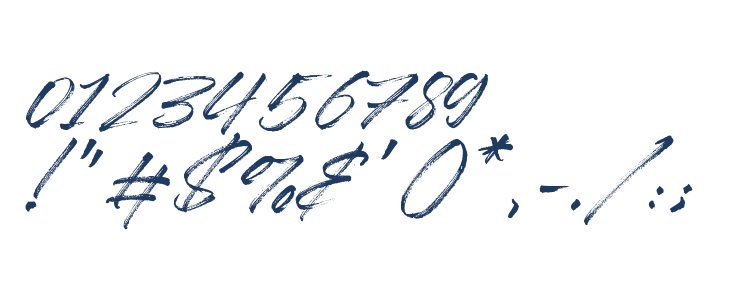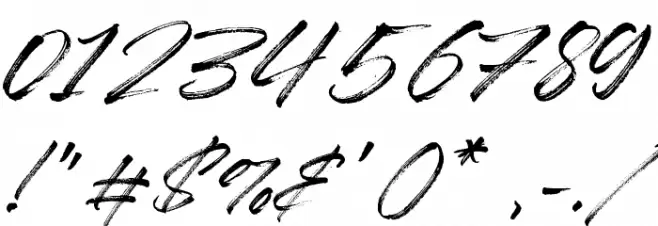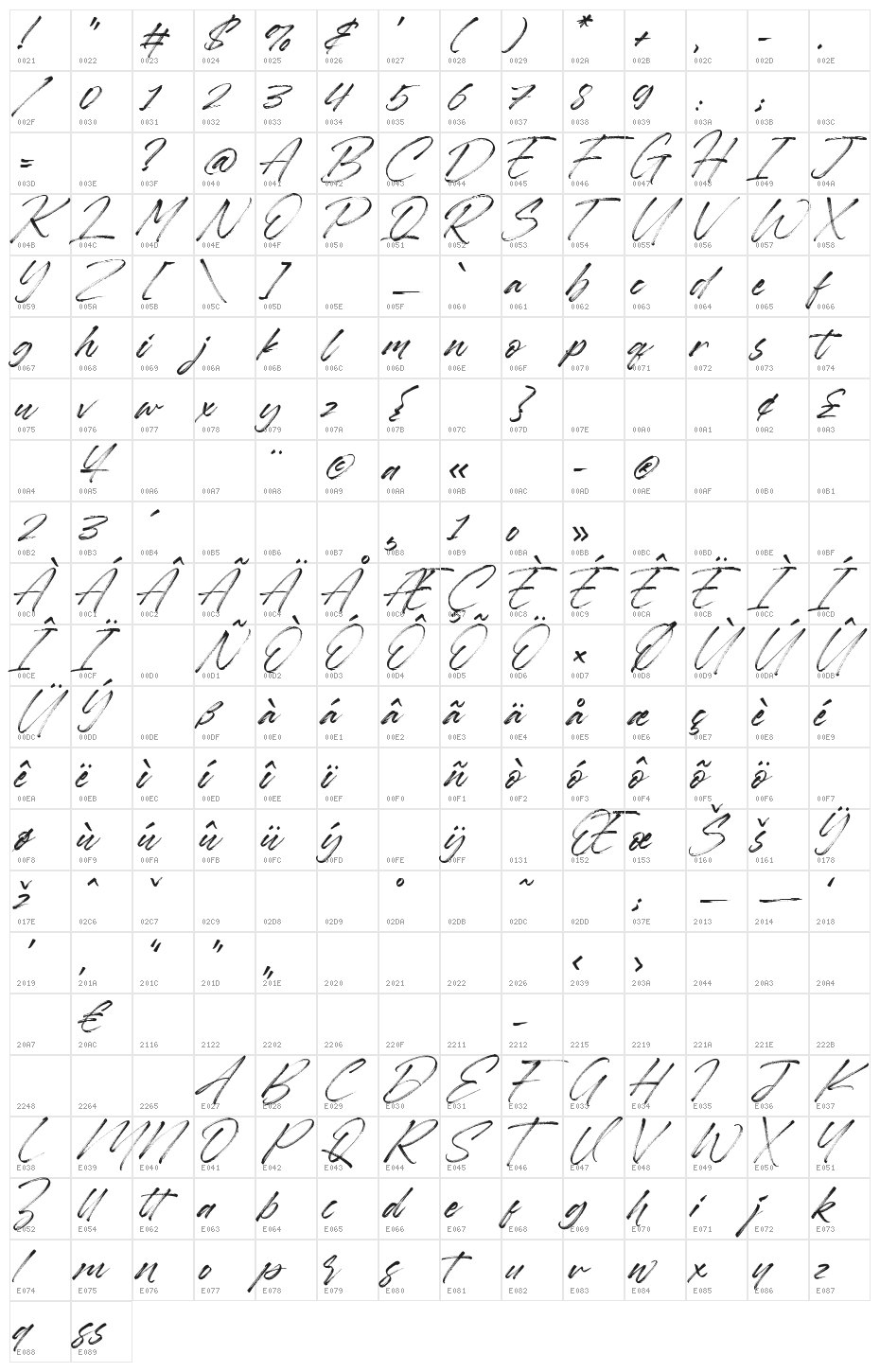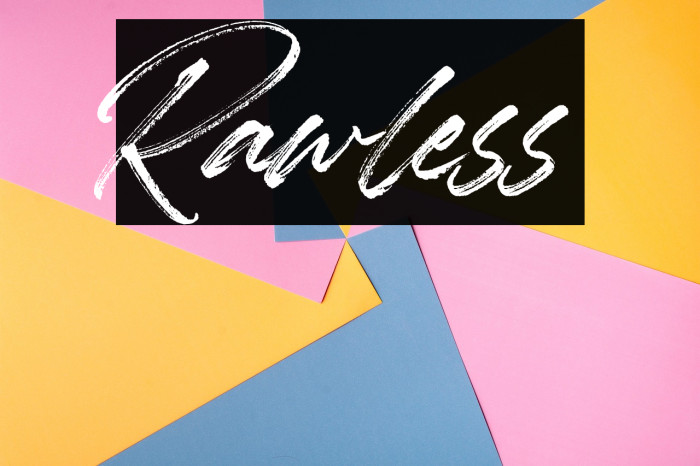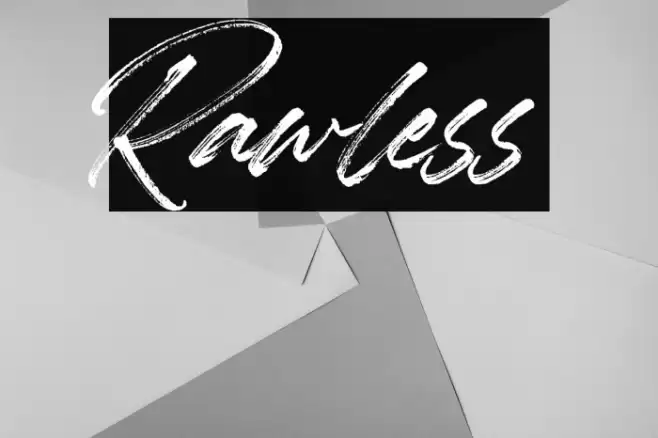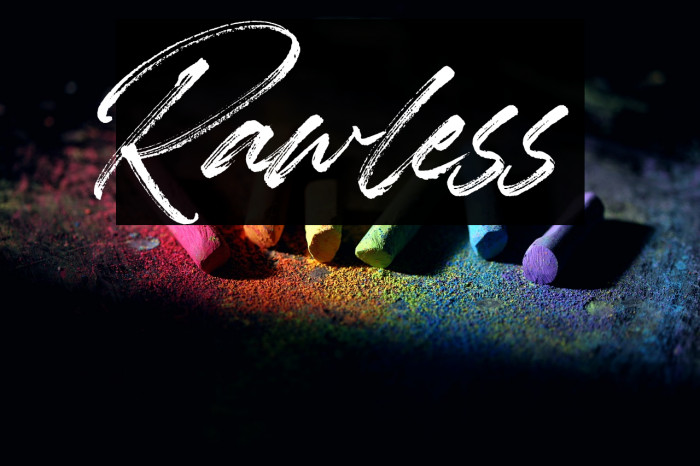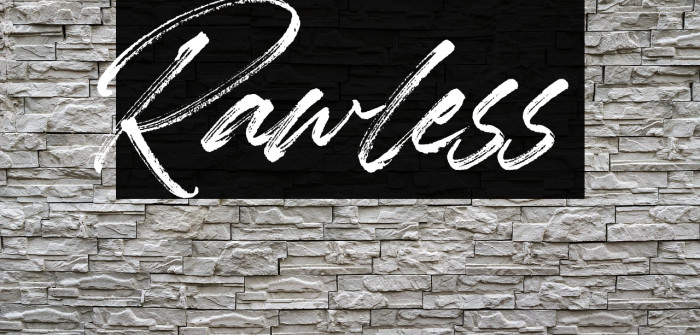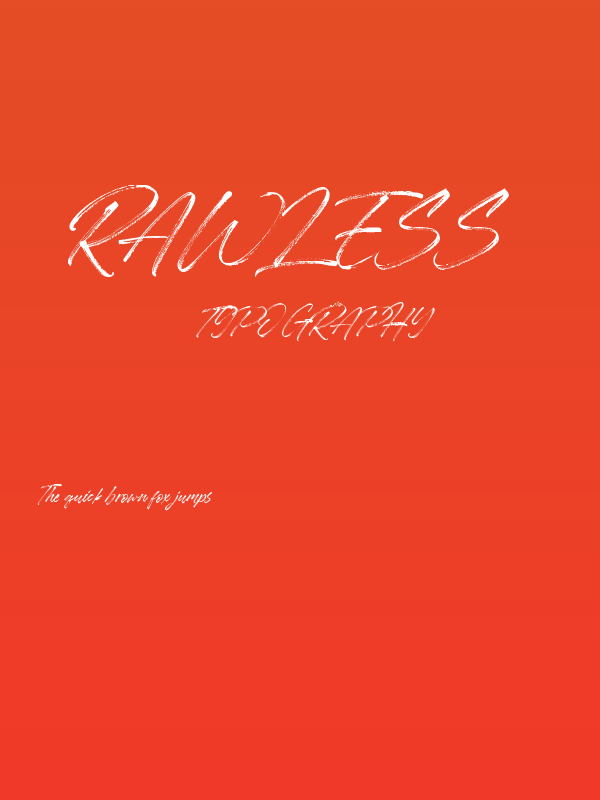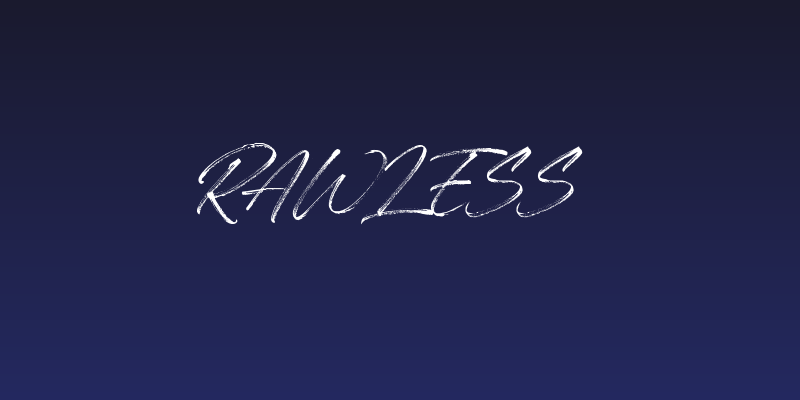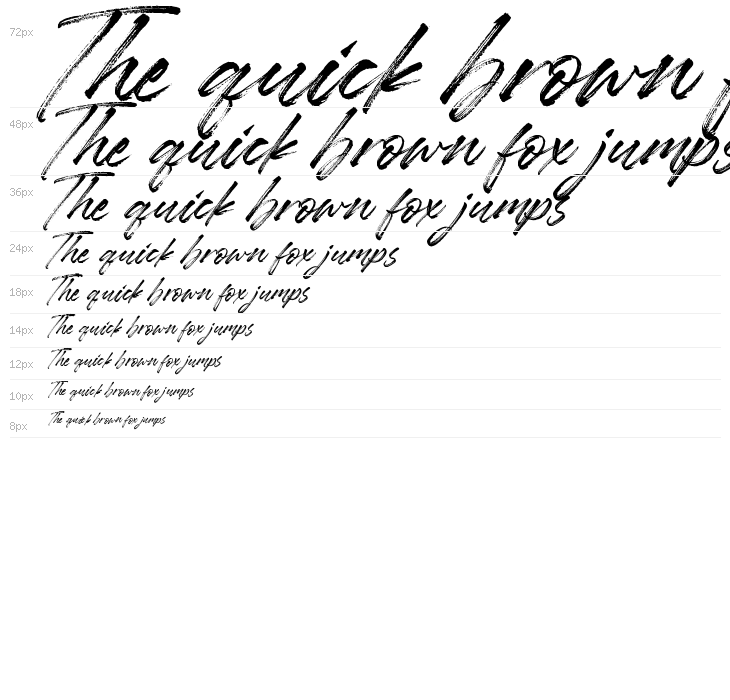
Rawless Font
Rawless Description
This font exhibits a dynamic and expressive handwritten style, characterized by its brush-like strokes and fluid motion. The uppercase and lowercase letters flow seamlessly, creating a sense of movement and energy. The texture of the strokes gives it a raw, artistic feel, reminiscent of hand-painted signage or calligraphy. The numerals and special characters maintain this lively aesthetic, ensuring consistency throughout. The overall appearance is both bold and elegant, making it suitable for projects that require a personal touch or artistic flair.
| Proposed Projects | Ideal for branding, artistic posters, invitations, and creative projects that require a personal touch. |